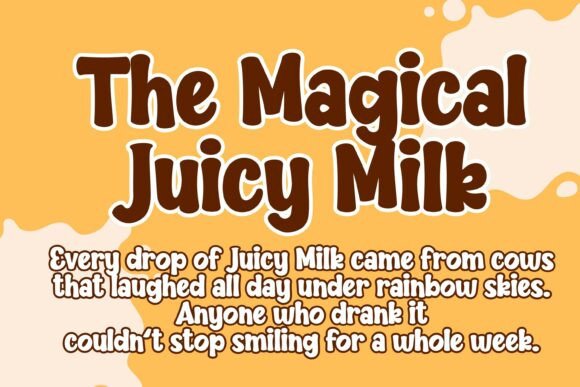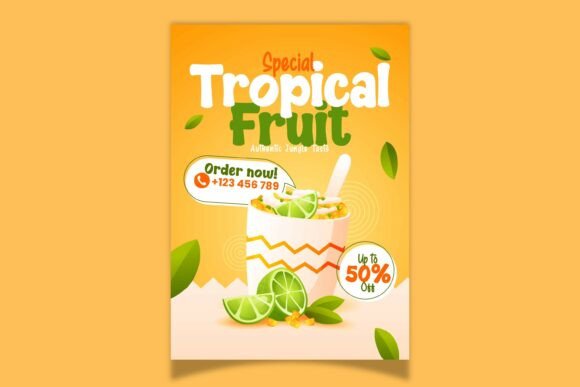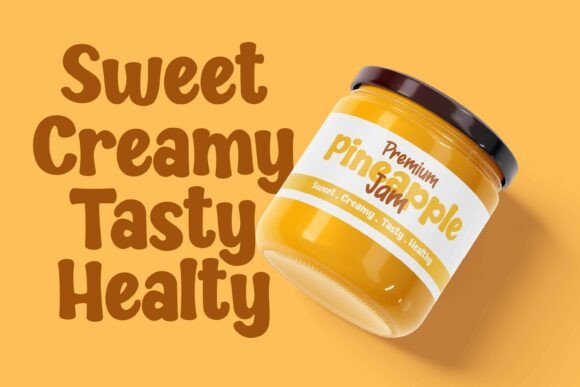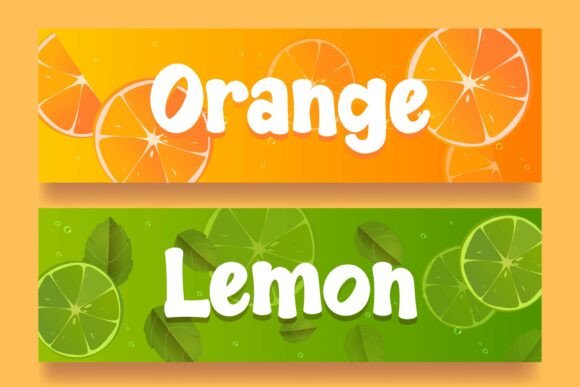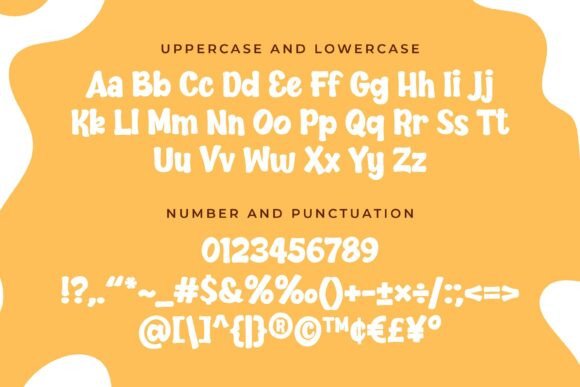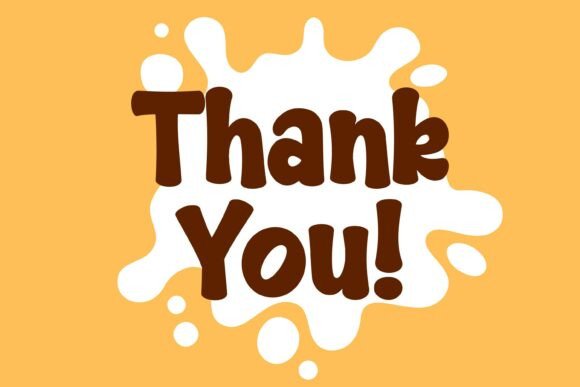
Introduction to Juicy Milk Font
JUICY MILK is a bold, bouncy font with round, cheerful letters and creamy flow.
Perfect for juice labels, dairy packaging, childrenโs branding, and playful product titles, this font blends readability with a fun, organic aesthetic The letters look soft and full of flavor, making them ideal for creating inviting visuals with personality.